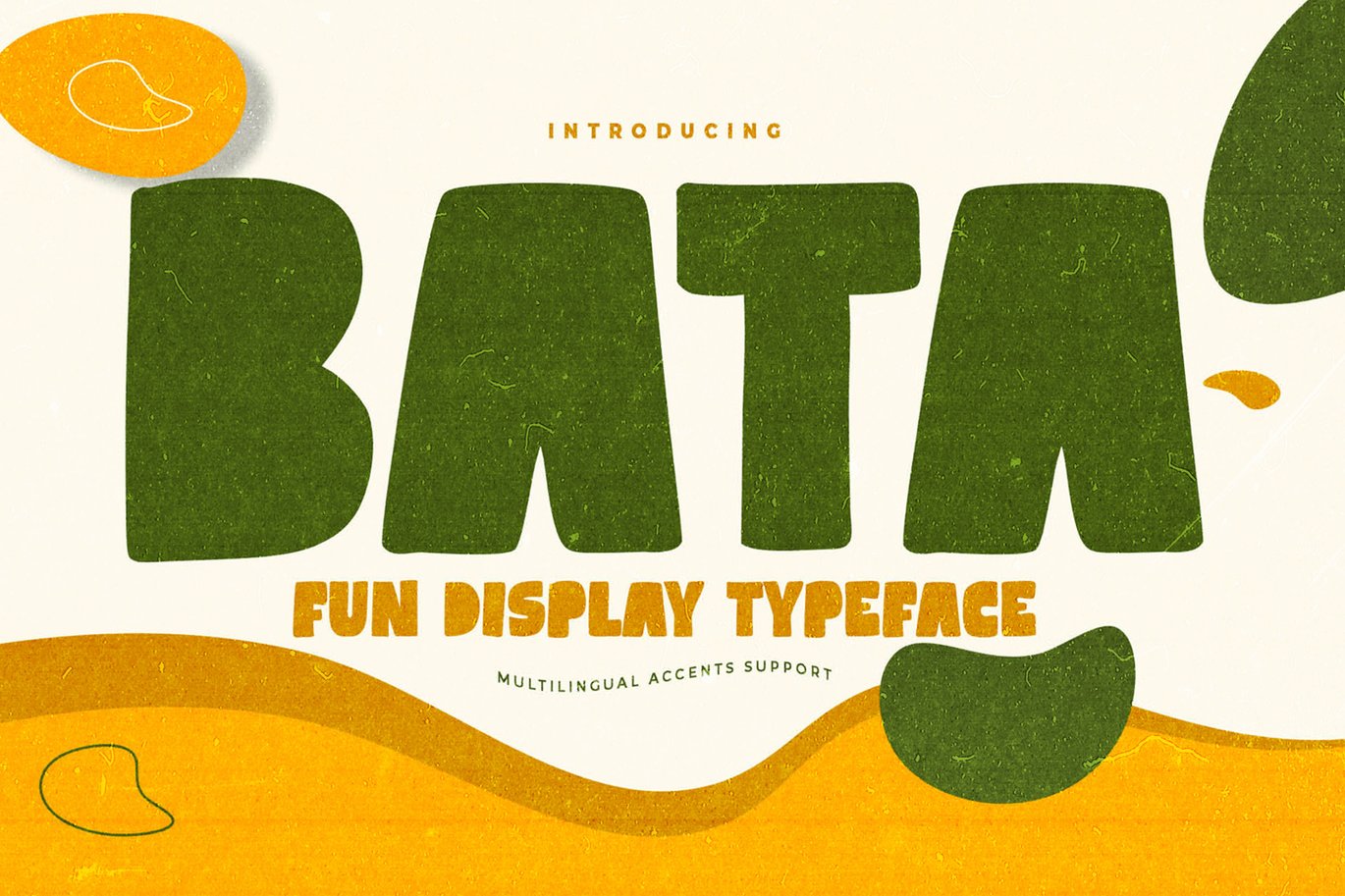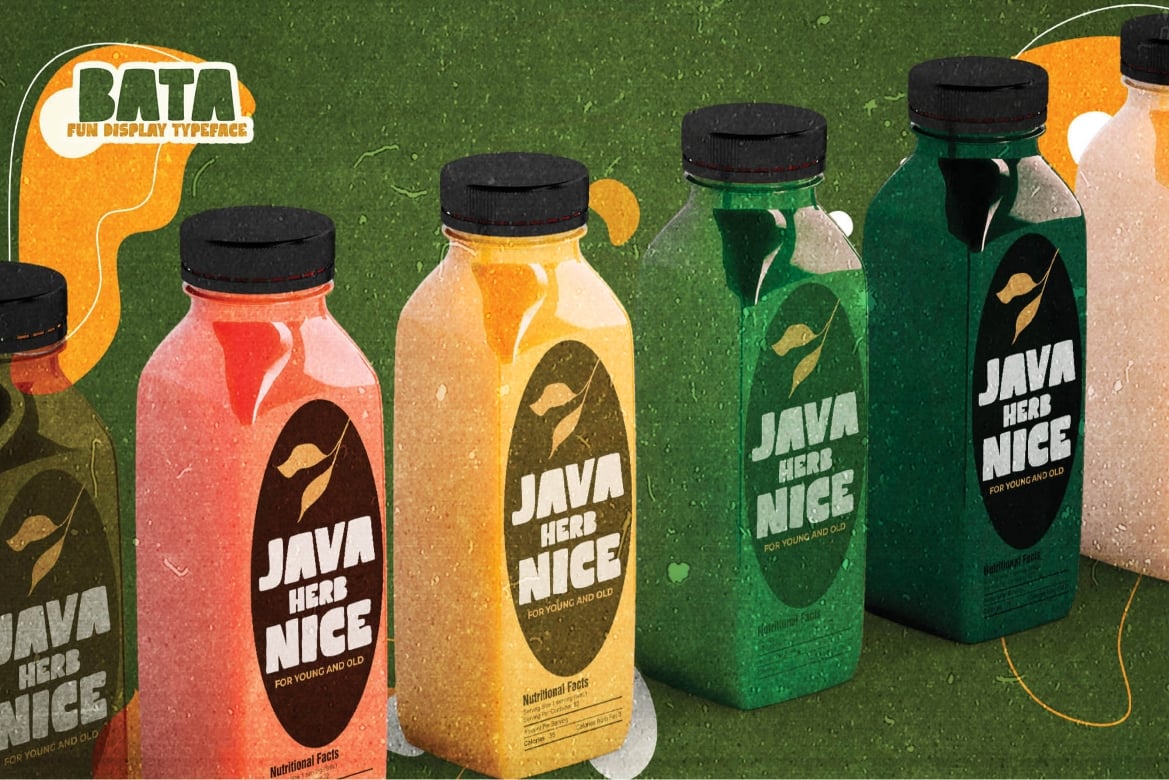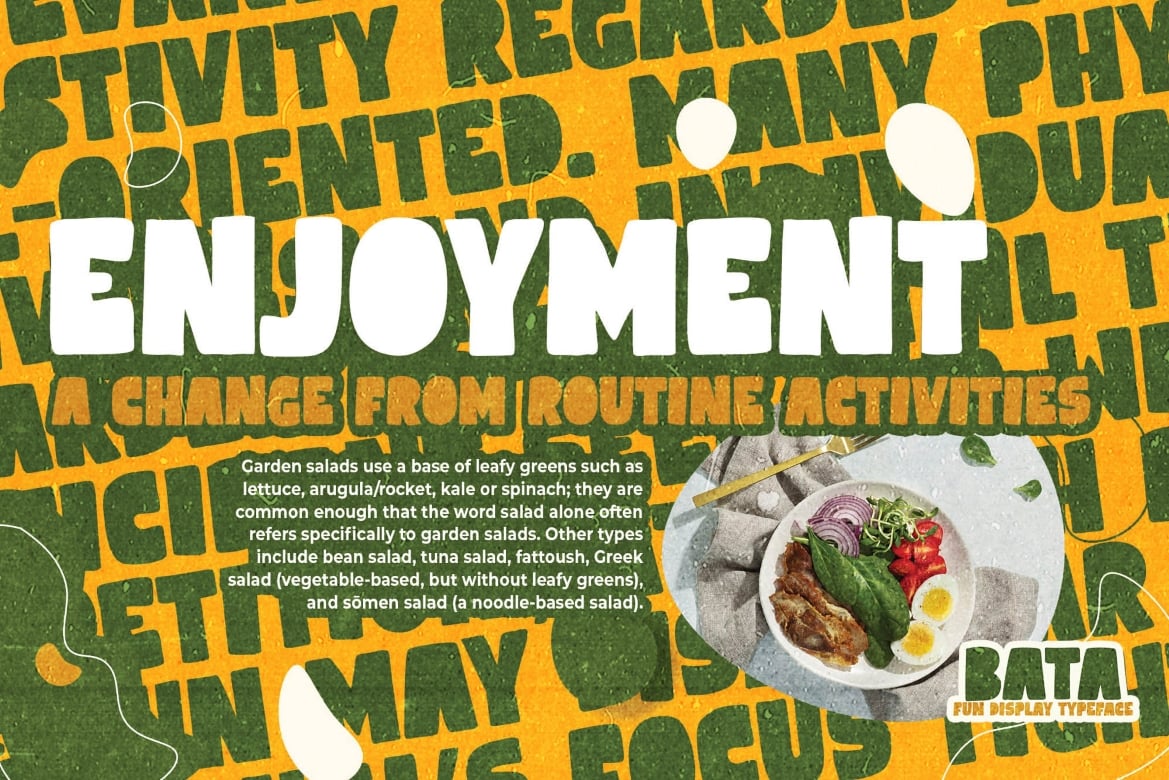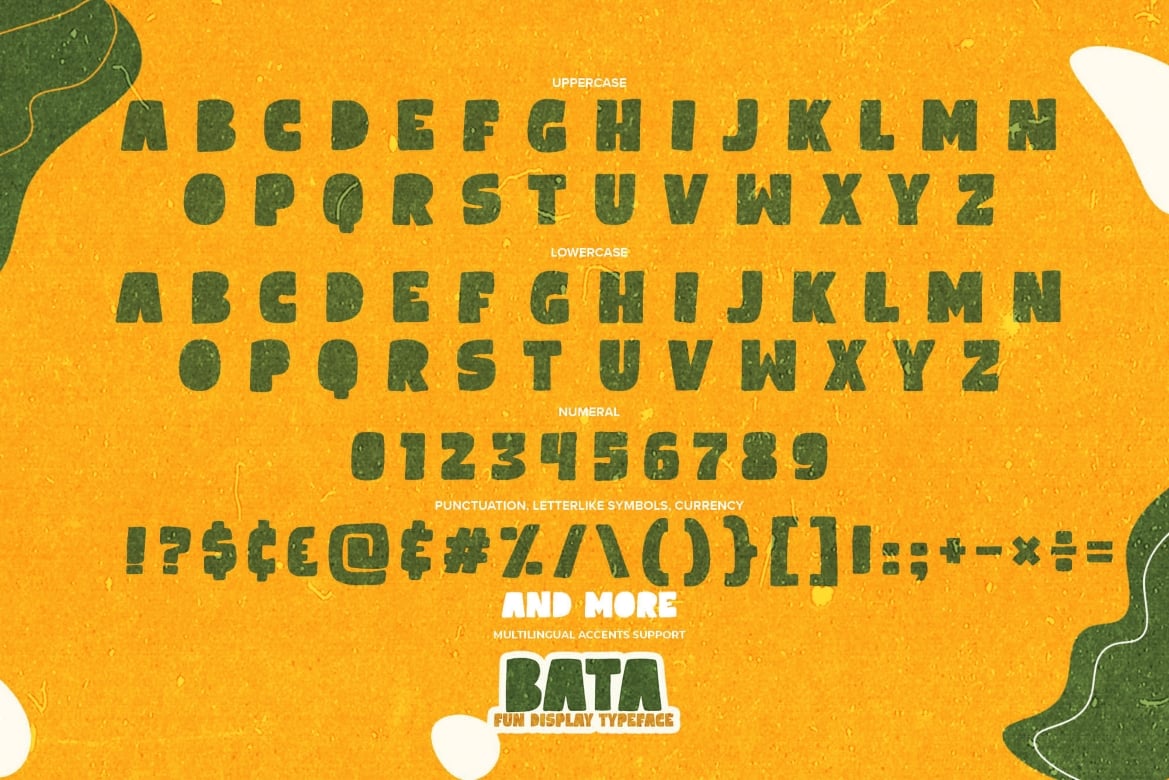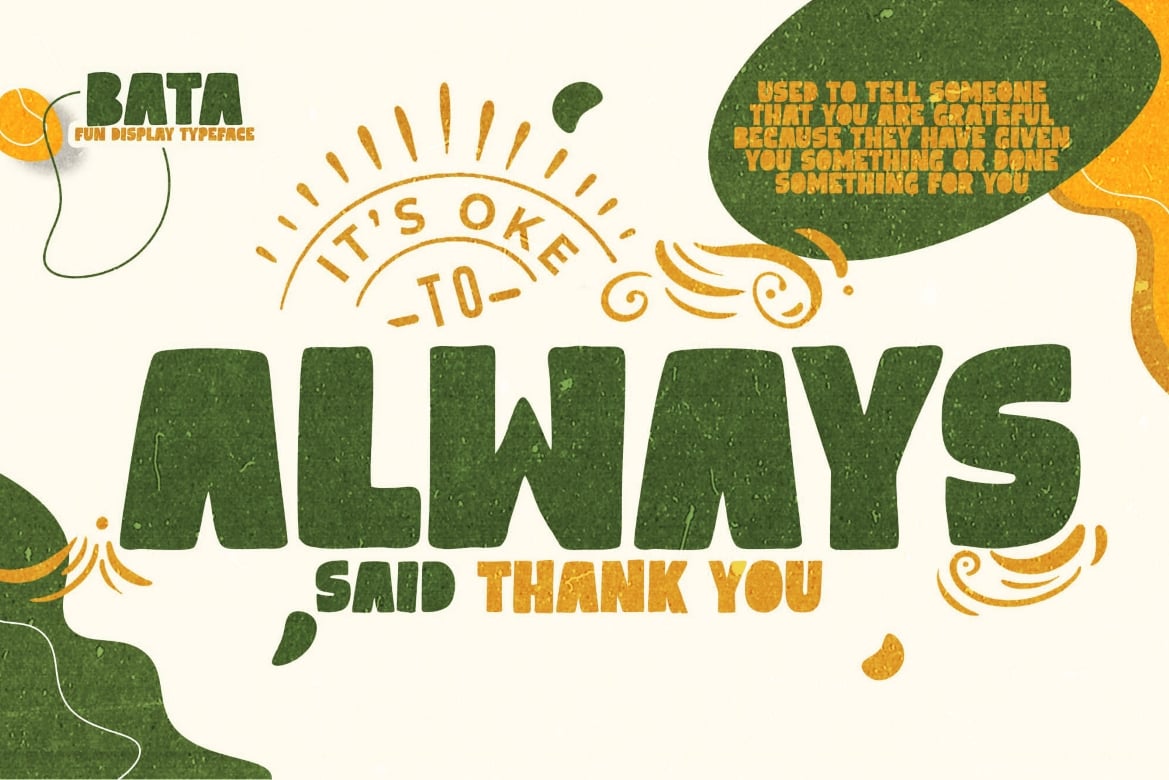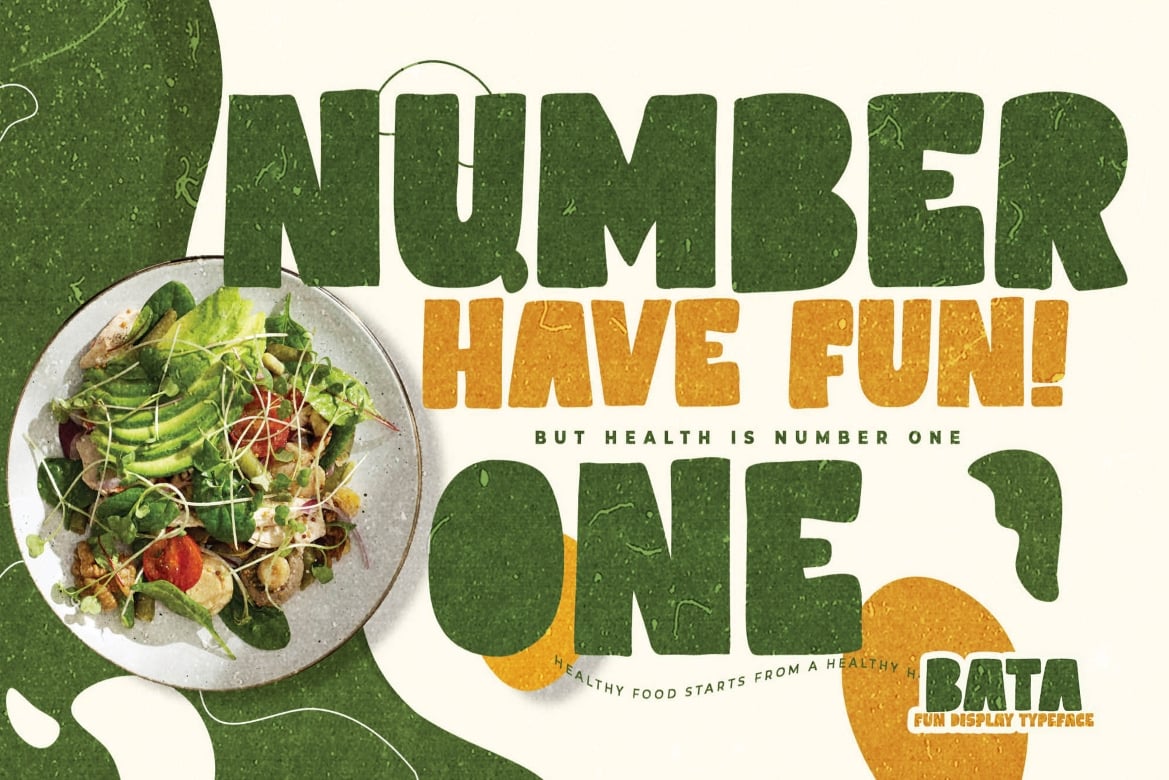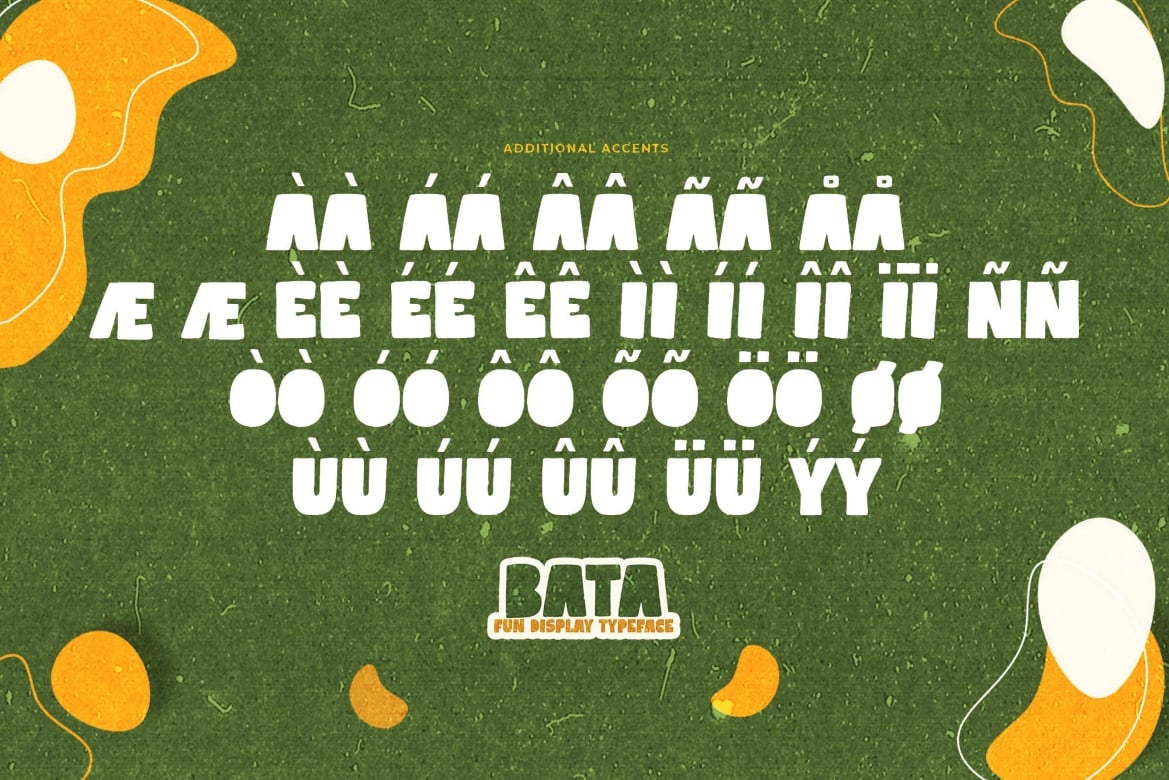
Bata – Display Fun Font
Here comes a New font, Introducing Bata It’s Display Fun Font is a Natural Style and Authentic classy style, this font is great for your creative projects such as watermark on photography, and perfect for logos & branding, invitation, advertisements, product designs, stationery, wedding designs, label, product packaging, special events or anything that need Display taste.
It is perfect for any design project such as Invitation, logo, book cover, craft or any design purposes, photography overlays, signs, window art, scrapbooking, tags and so much more!
It is perfect for any design project as an Invitation, logo, book cover, craft, or any design purposes.